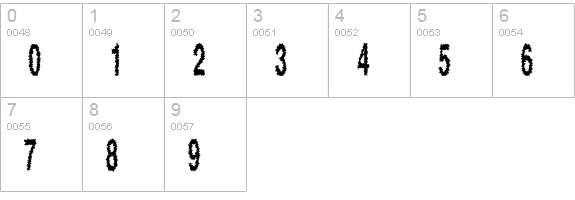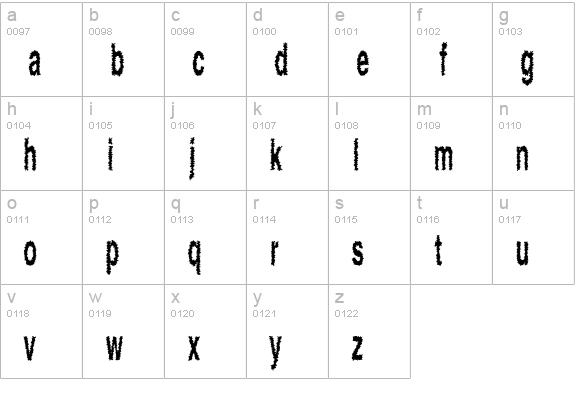
Shock Font Details
Introducing Shock font, a bold and electrifying typeface that will make your designs stand out from the crowd. With its edgy and modern look, Shock font is perfect for creating eye-catching posters, logos, and social media graphics. The sharp angles and dynamic letterforms of Shock font give your text a sense of energy and excitement. And the best part? Shock font is available for free download at FontsMarket.com. Yes, you read that right - this stunning font can be yours at no cost. So why wait? Add a jolt of creativity to your projects with Shock font today!